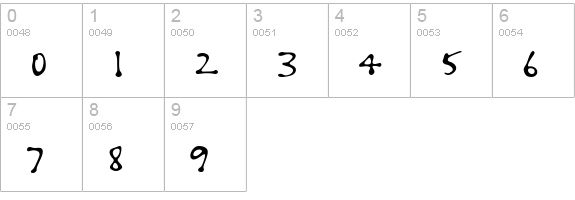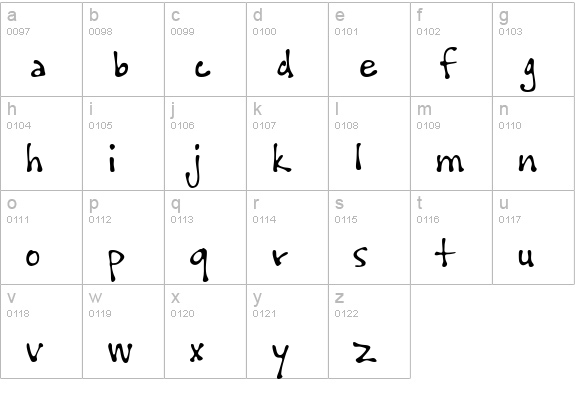
PFTissue Regular Font Details
PFTissue Regular is the standard, neutral variant in the PFTissue typeface family \xE2\x80\x94 well suited to general body text, paragraphs, and standard typographic work.
PFTissue Regular font is a modern and stylish typeface that exudes elegance and sophistication. Its clean lines and smooth curves make it perfect for a wide range of design projects, from logos to branding materials to website headers. This versatile font is sure to make your text stand out and leave a lasting impression on your audience. The best part? PFTissue Regular font is completely free to download at FontsMarket.com. You can easily access this high-quality font and enhance your projects without any cost. Don't miss out on the opportunity to add this beautiful typeface to your collection and elevate your design work to the next level. Download PFTissue Regular font today and let your creativity shine!